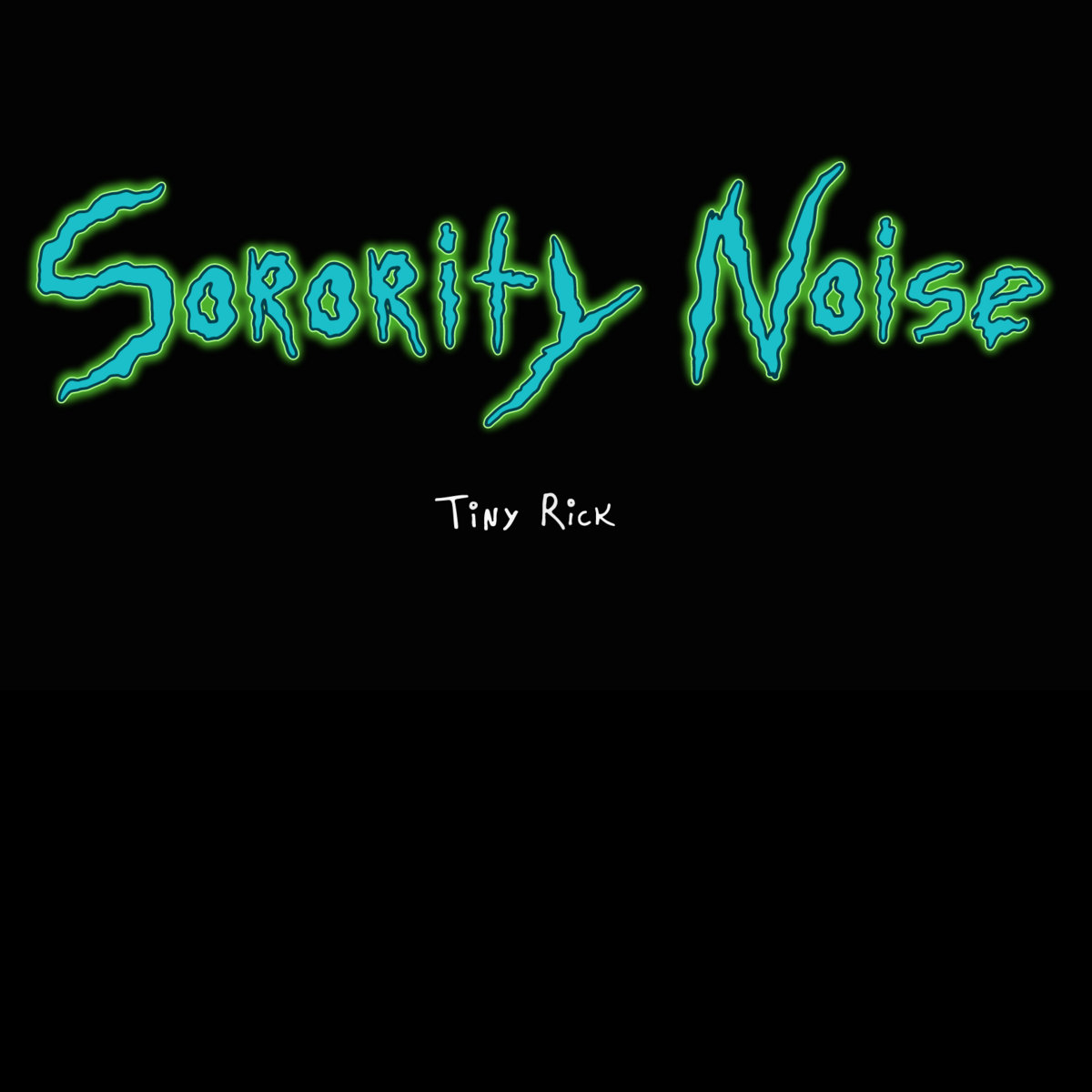
Rick And Morty Font Download Free. It was produced by mr. This cartoon series has started to get really famous since the day it was released.
This font has created with bold and thick strokes along with medium strokes containing outlines. That’s why due to the huge popularity of rick and. It is a horror, logo font family that famous due to its attractive look.
That Special Font Has Come Only In A Single Regular Style Along With Truetype Features.
This cartoon series has started to get really famous since the day it was released. That modern font has got too much popularity when it was used for the logo of rick and morty. While it’s released on cartoon networks.
The Name Of This Font Is “Get Schwifty” And It Was Designed By Jonizaak.
That can be used in the brand of galactic toys, cartoons, and wherever you want. One of sitcom’s comedic animations that were first premiered on 2nd december 2013. That’s why due to the huge popularity of rick and.
The Font Used For Rick And Morty’s Cover Is Called The Get Schwifty Font.
Rick And Morty Font Is A Logo Font Based On Rick And Morty’s Cover.
The font of the cartoon’s logo of “rick and morty” can mostly be said to be derived from the work of the. Rick and morty sample script: But before going to discuss its logo you need to know about rick and morty.